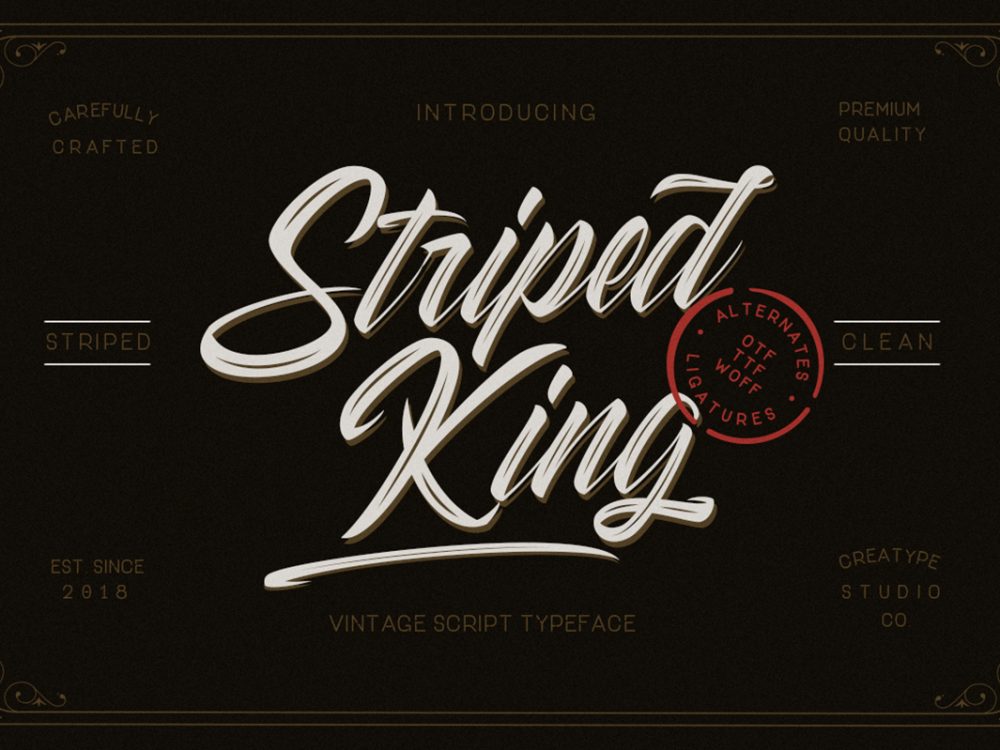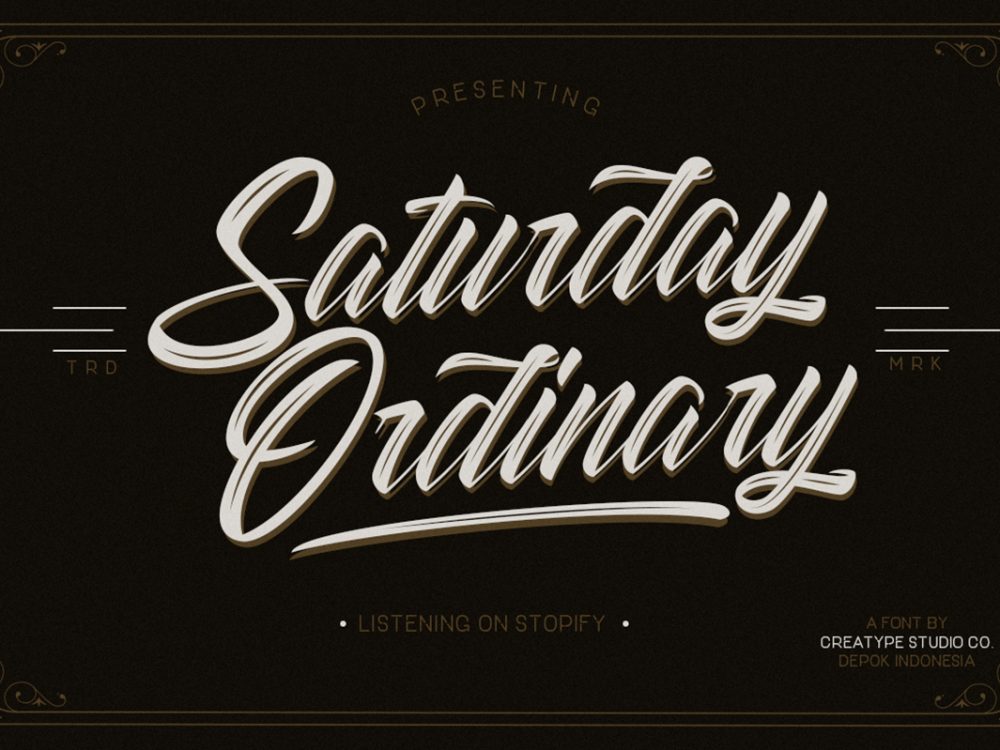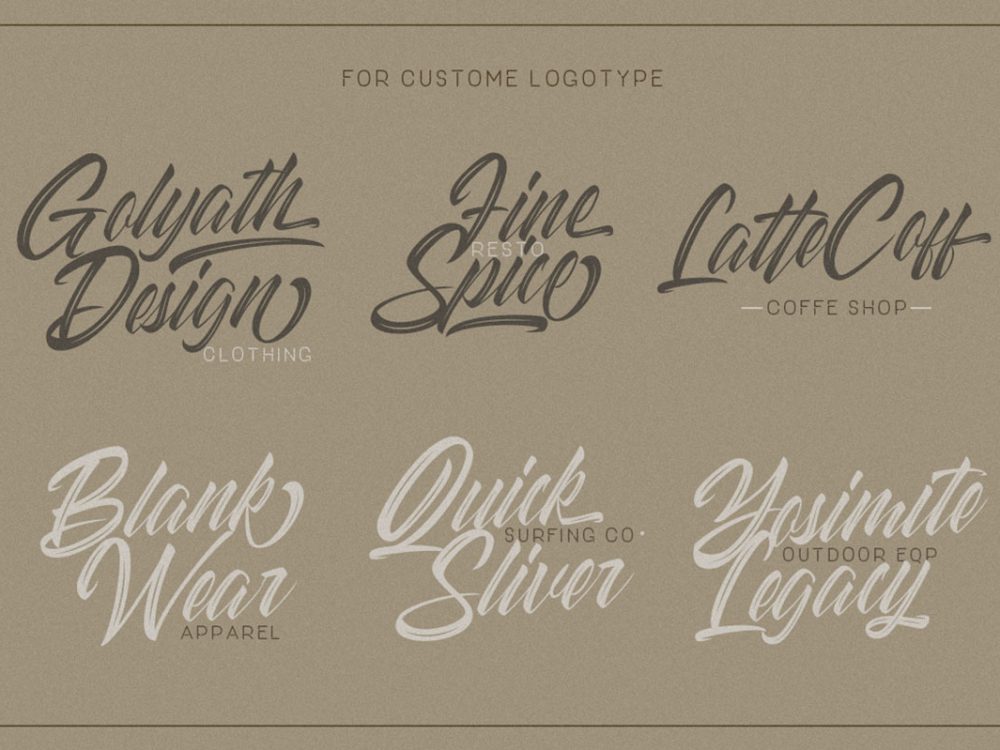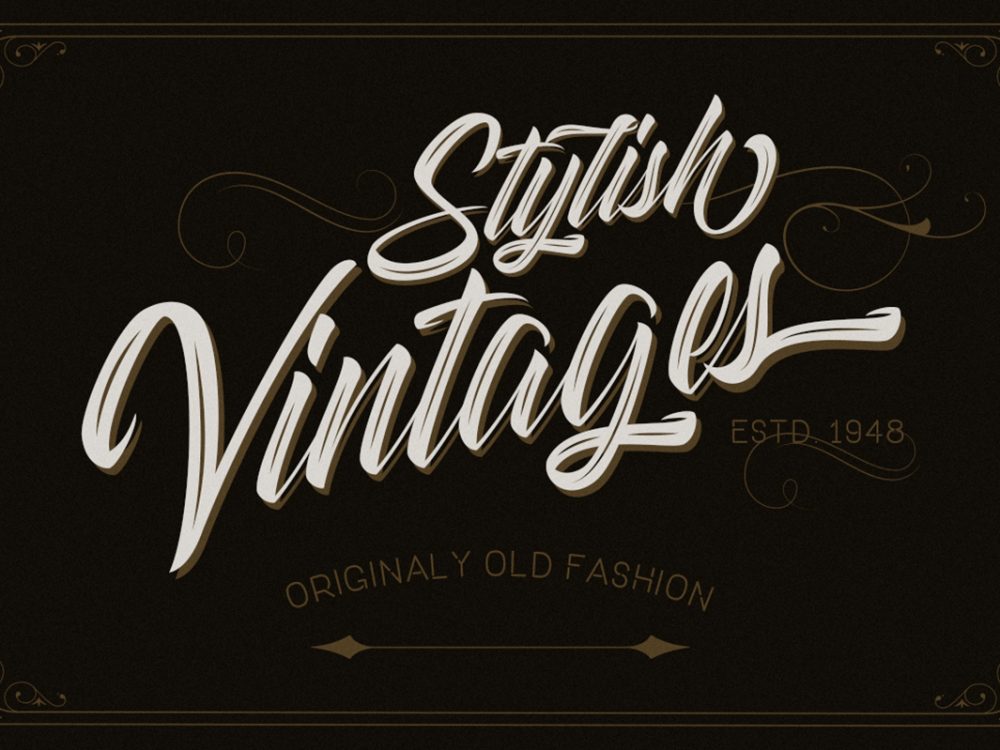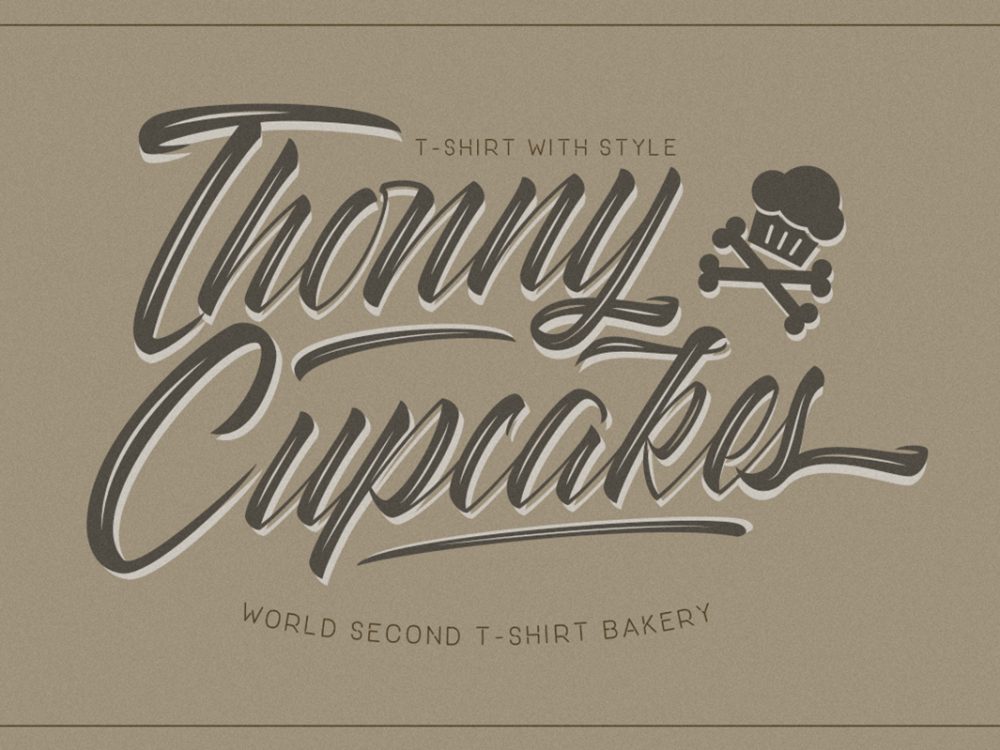
Striped King Free Font
Striped King Free Font is a handwritten font that simulates writing with a brush and features an elegant style and will help you create unique design projects and improve your professional level. Use this font to create memorable posters, wedding invitations, cards, branding, flyers, and more. Improve the quality and increase the popularity of your design projects by using this font. If you like it don’t forget to check out the full version.